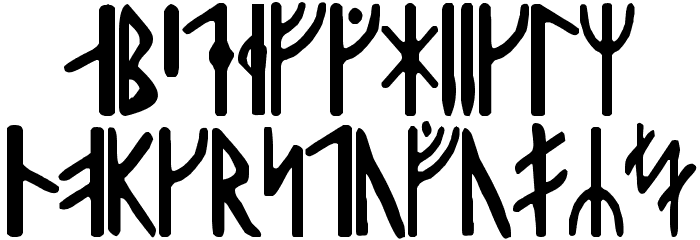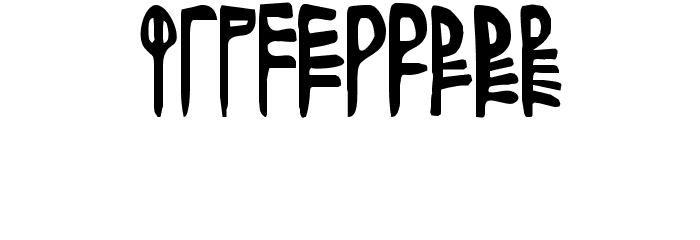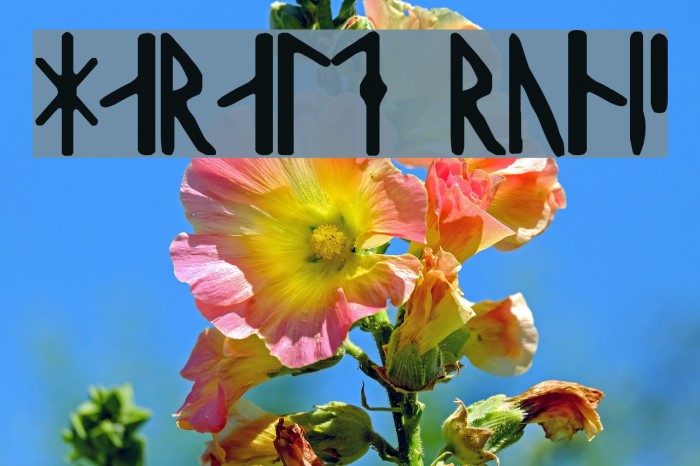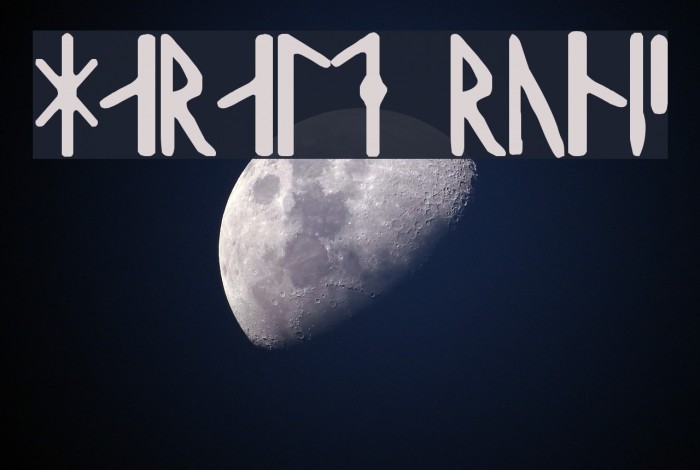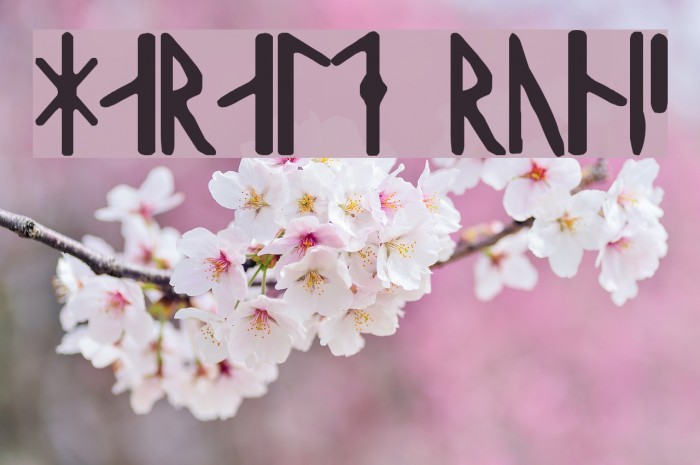
Harald Runic Font
This font is inspired by ancient runic alphabets, featuring angular and geometric shapes that evoke a sense of mystery and history. The characters are bold and striking, with a consistent thickness that gives them a strong presence on the page. The design incorporates sharp angles and straight lines, creating a sense of rigidity and strength. The font is highly decorative, making it suitable for projects that require a historical or mystical aesthetic. Its unique style makes it stand out, capturing the essence of ancient scripts while maintaining readability.
A bold, geometric font inspired by ancient runic alphabets.
- Proposed Projects: Ideal for historical themed designs, fantasy book covers, game interfaces, and decorative posters.